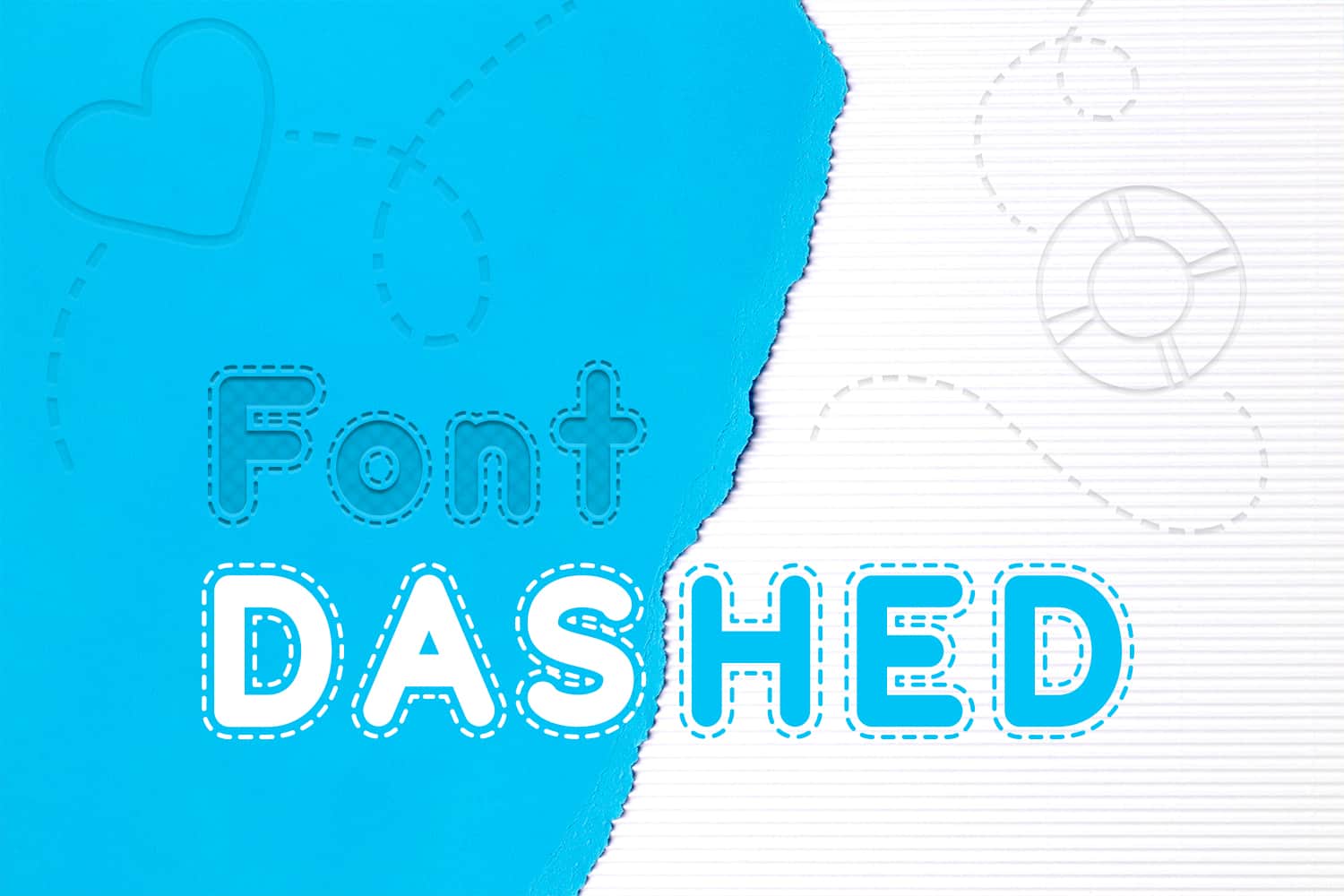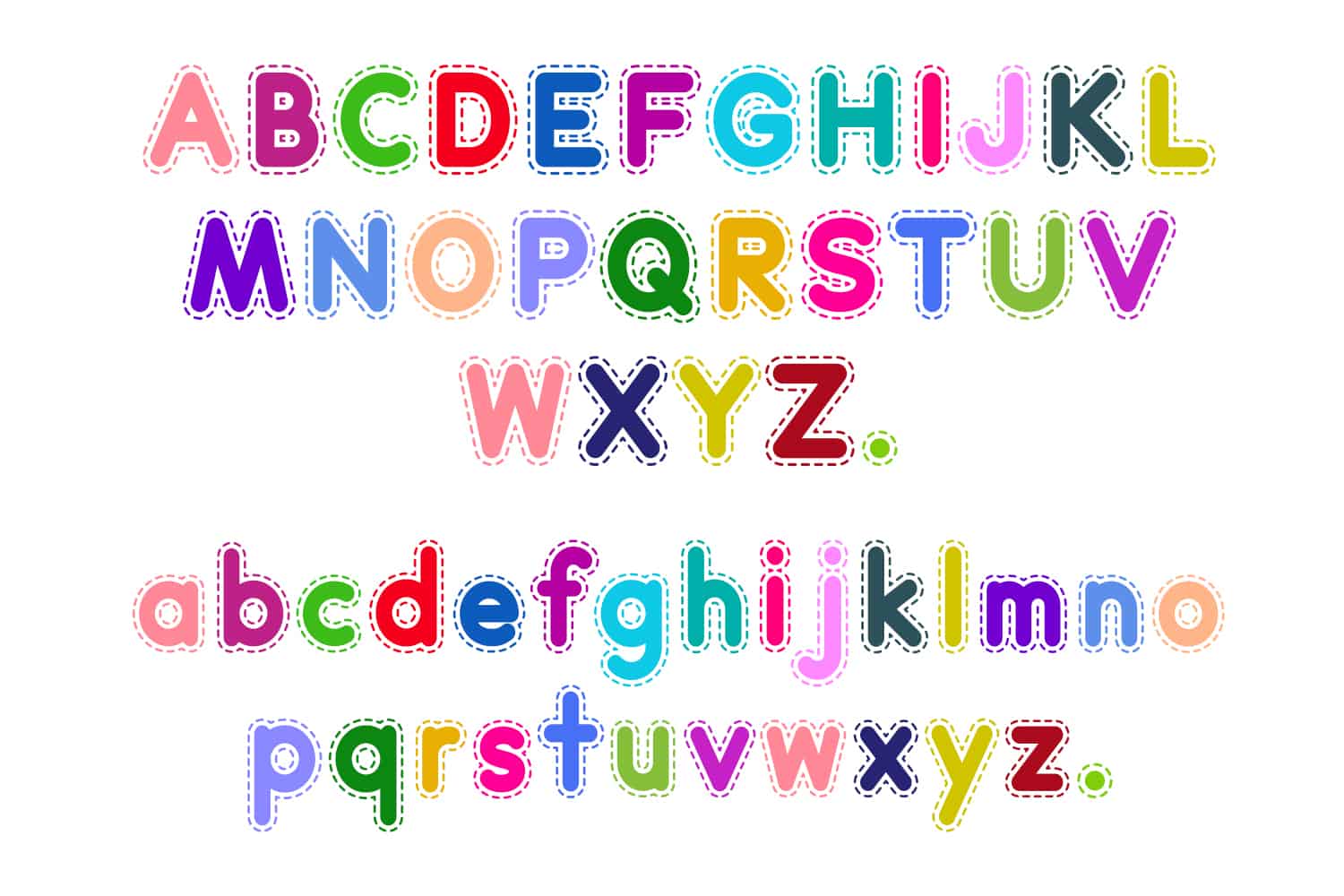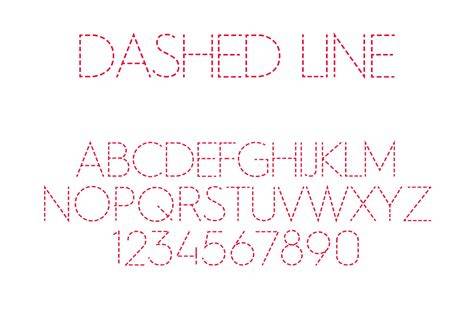
The Trend Of Dashed Fonts In 2023
What are Dashed Fonts?
Dashed fonts are a type of font created by replacing certain characters in a font with a dashed line. Dashed fonts can be used to create visually interesting text, which can be used to make a design stand out. The dashed font style is often used in logos, titles, and other text designs. For example, a logo might use a dashed font to give a unique, modern feel to the design.
The Popularity of Dashed Fonts
In 2023, dashed fonts are becoming increasingly popular as a way to create unique and eye-catching designs. With the rise of digital design, more and more people are turning to digital fonts to create designs that stand out from the crowd. Dashed fonts have become especially popular for titles, logos, and other text-based designs. They can help to add a modern and stylish feel to designs and can be used to create visually interesting text.
Using Dashed Fonts in Your Design
When using dashed fonts, it's important to consider the design elements that you are trying to create. Dashed fonts can be used to create text that stands out from the background and other elements. It's important to use the right font size and color to ensure that the text stands out. Additionally, you should consider the overall design elements of the design, such as the colors and shapes, to ensure that the text blends in with the other elements.
Choosing the Right Dashed Font
When choosing a dashed font, it's important to consider the type of design you are creating. Different fonts can have different styles and shapes, and it's important to choose a font that will work with the design elements that you are creating. Additionally, it's important to consider the overall design elements of the design, such as the colors and shapes, to ensure that the text blends in with the other elements. Additionally, you should consider the size of the font, as some fonts may be too small or too large for certain designs.
Tips for Creating a Dashed Font Design
When creating a design with a dashed font, there are a few tips to keep in mind. First, it's important to consider the overall design elements of the design, such as the colors and shapes, to ensure that the text blends in with the other elements. Additionally, it's important to use the right font size and color to ensure that the text stands out. Additionally, you should consider the overall design elements of the design, such as the colors and shapes, to ensure that the text blends in with the other elements. Finally, it's important to consider the impact of the font on the overall design, as some fonts may be too small or too large for certain designs.